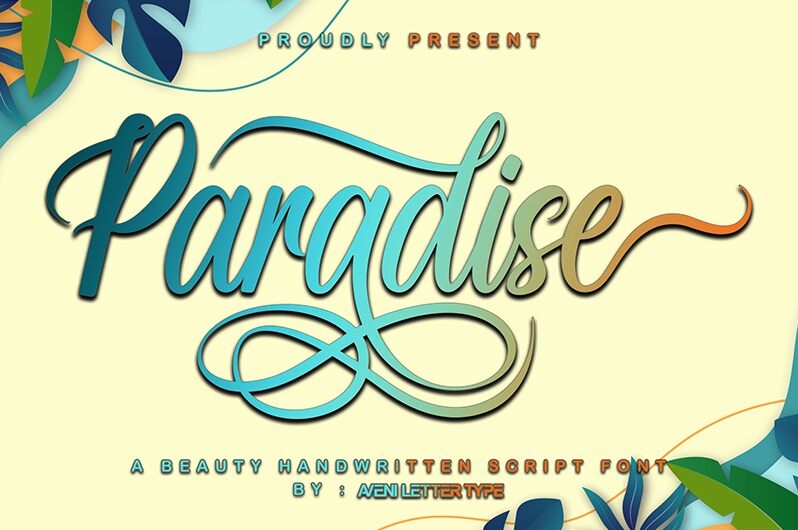
Paradise Love, crafted by the visionary Aveni Letter Type, epitomizes the captivating allure of calligraphy. This font beautifully melds elegant flourishes with a bold presence, creating an inviting visual harmony that exudes warmth and sophistication. Its meticulously curved strokes and dynamic flow make it strikingly memorable, perfect for adding a personal touch to any design.
Paradise Love is ideal for applications that require an enchanting aesthetic-be it wedding invitations, branding projects, or romantic quotes. Its timeless charm captivates attention while maintaining legibility and grace. Whether used in digital or print mediums, Paradise Love brings a sense of artistry and romance to every letter it forms.
Paradise Love